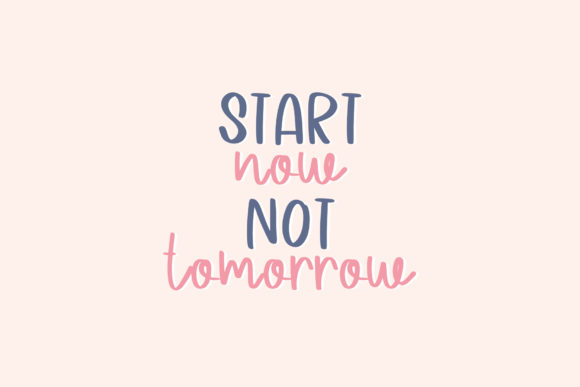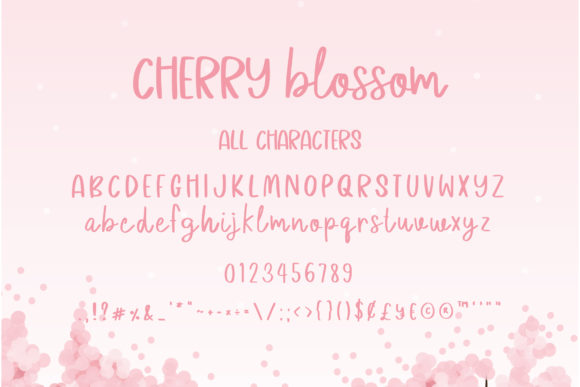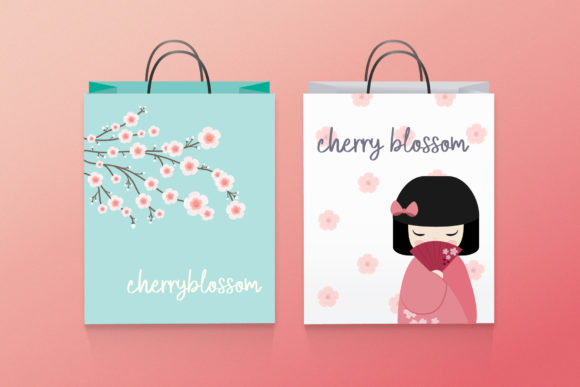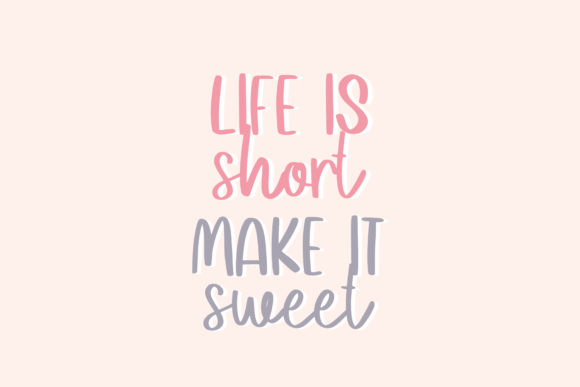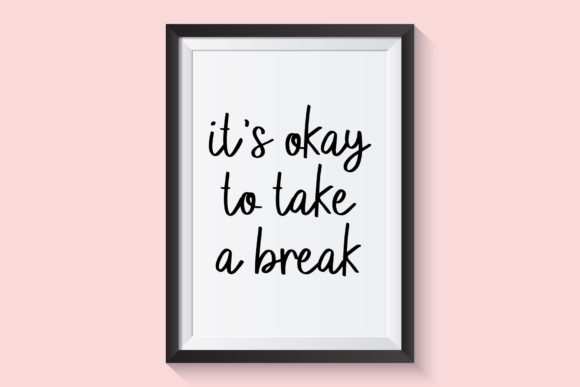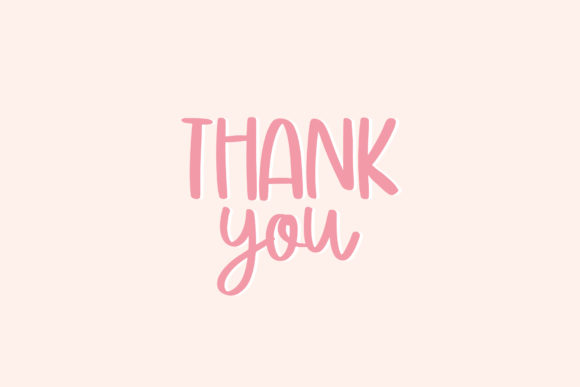
Discover the Delight of the Cherry Blossom Font
You know that feeling when you stumble upon a font that makes your heart skip a beat? It’s like finding the perfect shade of paint for a room, or the ideal melody for a song. For designers, this moment is priceless, and it’s exactly what the Cherry Blossom Font is designed to evoke.
This sweet and delicate handwritten font is the perfect addition to any design project. Whether you’re creating a wedding invitation, a greeting card, or a social media post, the Cherry Blossom Font is sure to bring a touch of whimsy and charm. Its cute style is not only visually appealing, but also versatile, making it a valuable tool for designers of all levels.
Cherry Blossom Font Key Features
- Font Family: Cherry Blossom is a unique, hand-drawn script font designed to evoke the beauty of cherry blossom flowers.
- Character Set: Includes a wide range of characters, including uppercase and lowercase letters, numerals, and punctuation marks.
- Unique Characteristics: Features a delicate, hand-drawn style with intricate flourishes and subtle texture, giving it a distinctive and elegant appearance.
Cherry Blossom Font Review
Overall, I think the Cherry Blossom Font is a sweet and charming addition to any design project. ✨ It’s perfect for spring-themed or feminine designs, and the delicate brushstrokes give it a whimsical feel.
- ✨ The font is highly customizable, with a range of colors and styles to choose from.
- ✨ The brushstrokes are intricate and detailed, giving the font a unique and handmade feel.
- ✨ The font is easy to read, even at smaller sizes.
- ⚠️ The font may not be suitable for bold or large-scale text, as the delicate brushstrokes can get lost.
- ⚠️ The font may require additional styling or formatting to achieve the desired look, as it can be quite playful and unpredictable.
Overall, I think the Cherry Blossom Font is a lovely addition to any design project, but it may require some extra creativity and experimentation to get the most out of it.
The Cherry Blossom font is perfect for:
2. Spring-themed designs and marketing materials.
3. Elegant and feminine branding and packaging.
4. Adding a touch of whimsy and romance to your designs.